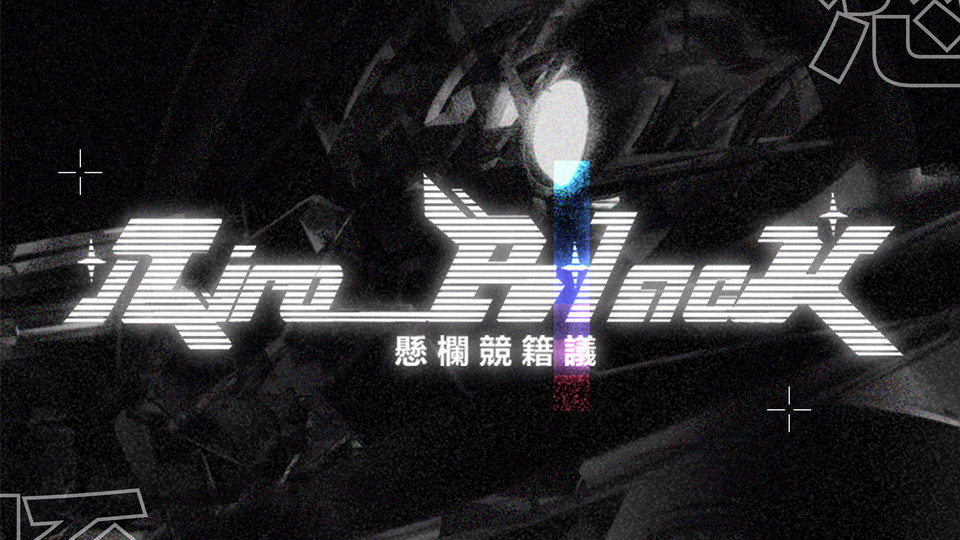
Download Niro Black font, a futuristic display typeface inspired by Bjork font. Niro Black is perfect for posters, games and bold headlines.
Designer: Evann Le Biavant